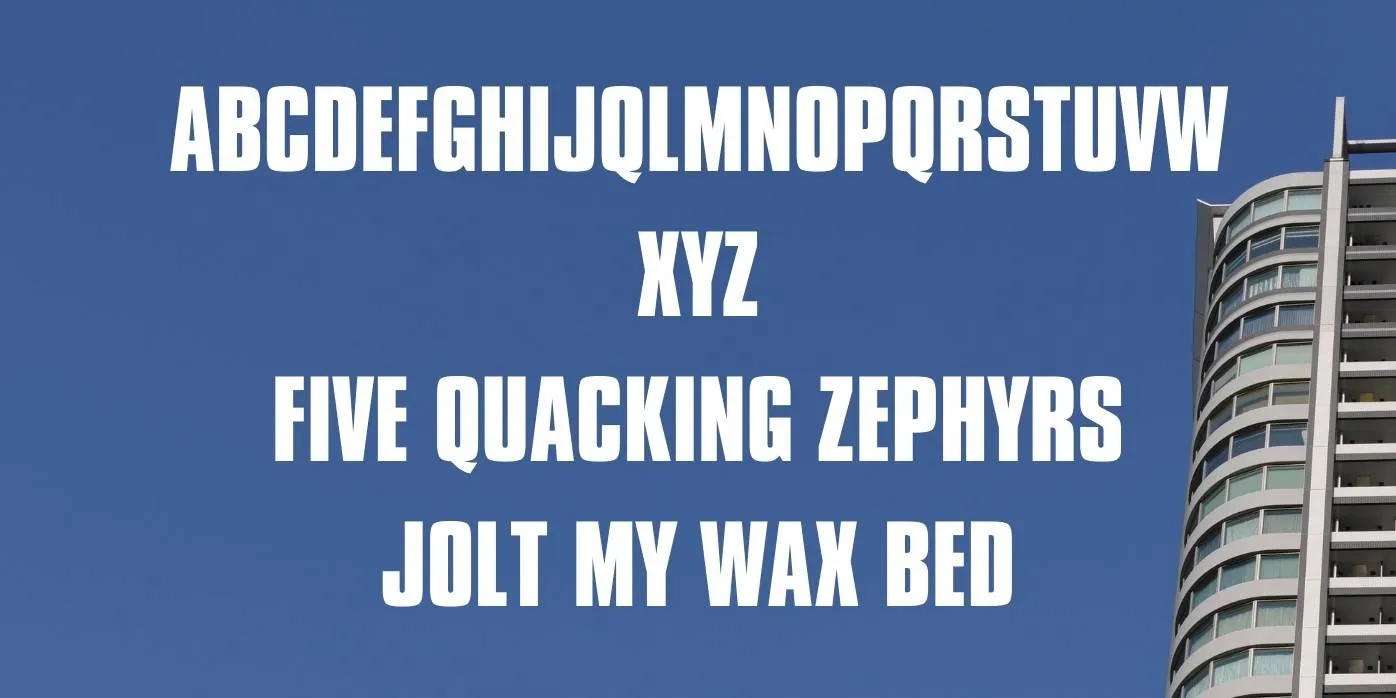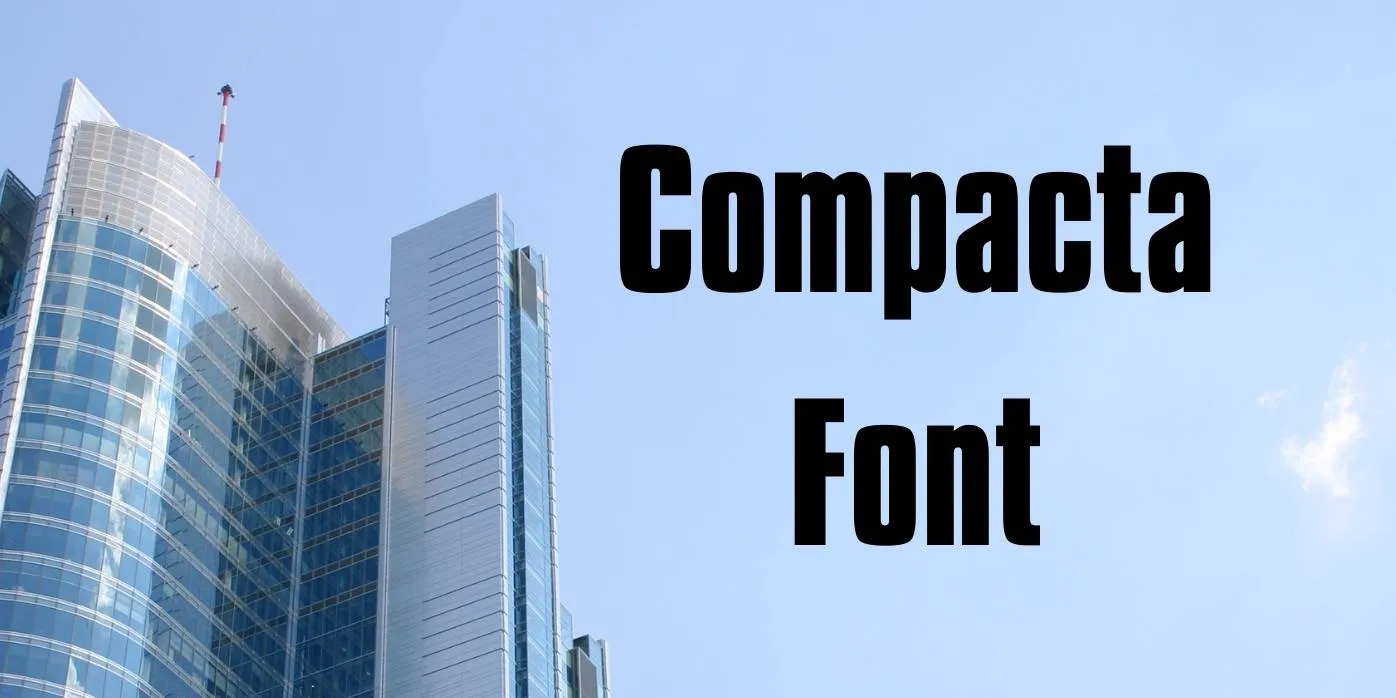
Compacta Font
We are presenting an awesome and stylish typeface known by the name Compacta Font. This font family was designed by a well-known and elegant designer Fred Lambert. This modern typeface was developed in the year 1963 by a most famous company A London-based company. This font belongs to the Sans-Serif font family.
This classic font is most popular like other fonts, especially Impact Font. This font has small letters and the space between letters is also small. Different designers used this staggering font for their various projects. Due to its keen features, this font family earns great fame among many designers.
Frequently this font is used for printing and media purposes. This unique font is available in different nine styles and comes in various nine weights. It supported a large number of languages. The best thing that makes this font more advanced is its online font generate facility.